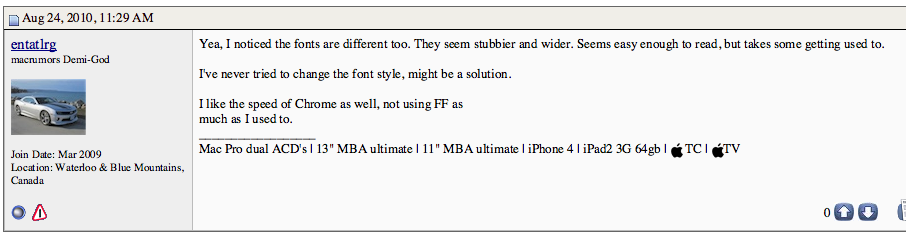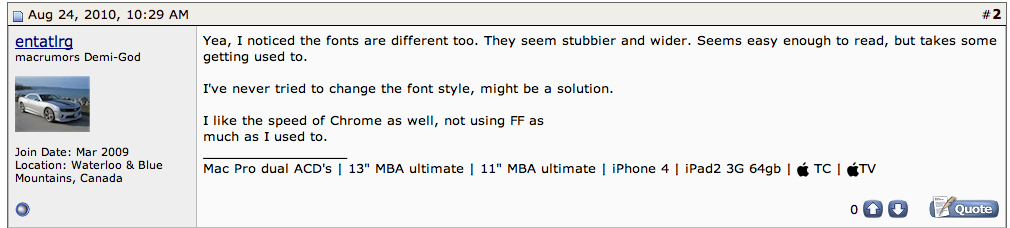
Does anyone else notice fonts in Google Chrome don't look as good as they do in other browsers like FF and Safari? They look cramped and unkerned. Am I the only one? It's distracting after coming from FF and preventing me from using it. Though that's not the only reason. I do like the speed of Chrome though.
Yea, I noticed the fonts are different too. They seem stubbier and wider. Seems easy enough to read, but takes some getting used to.
I've never tried to change the font style, might be a solution.
I like the speed of Chrome as well, not using FF as
much as I used to.
Tried Safari and Chrome side by side and the fonts at least in this thread look exactly the same. Firefox however looks noticeably worse, fonts are slightly blurrier. Apparently it's because it uses the default font rendering of OSX whereas Safari and Chrome use the Webkit rendering engine's own, better looking font rendering. Why all the rest of OSX doesn't use this I have no idea.
I've throughly looked into the font preferences. They have been altered for the fix & I still seem to be having this problem. Look at this threads differences.
Another thing to note. I am using Suitecase Fusion 3 (some other forums made mention of it, but no clarity)
Note the differences in the fonts. Chrome is the serif, Safari is the sans-serif.